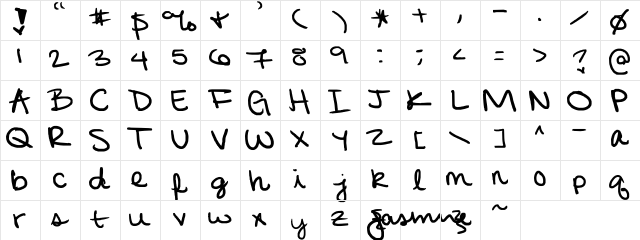
Jasmine Print Regular Font Preview
Jasmine Print Regular
Design Context for Jasmine Print Typeface
Jasmine Print takes a measured approach to typography — its balanced proportions and neutral character make it a reliable workhorse for both digital and print work.